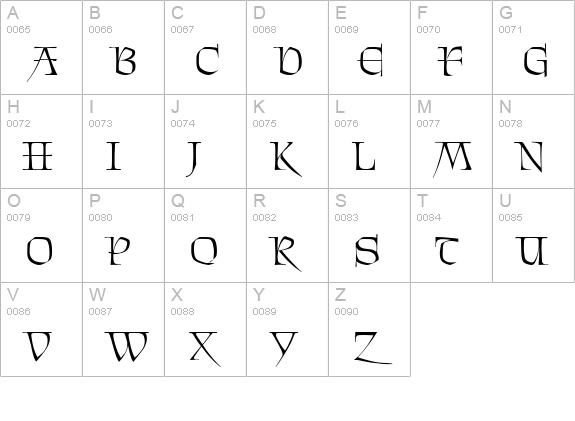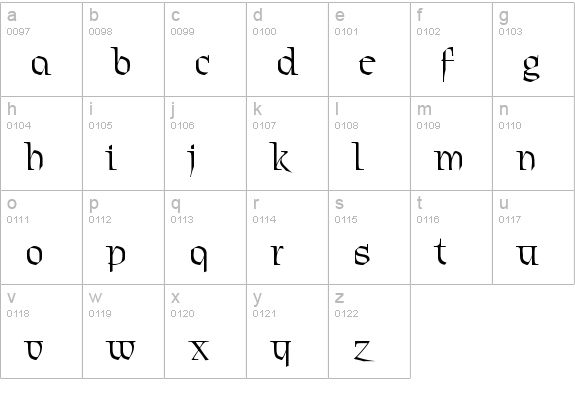
Patrick Font Details
Patrick font is a stunning typeface that exudes elegance and sophistication. It is a versatile font that can be used for various design projects, from logos and branding to headlines and body text. With its clean lines and graceful curves, Patrick font adds a touch of class to any design. What sets Patrick font apart is not only its impeccable design but also its accessibility. This incredible font is available for free download at FontsMarket.com. This means that designers, artists, and creatives of all kinds can freely access and utilize this beautiful typeface in their work without any constraints. Whether you are a professional designer or a hobbyist, Patrick font offers you the opportunity to elevate your projects to the next level. Its timeless elegance and versatility make it suitable for a wide range of creative endeavors. From creating stunning advertisements to designing captivating websites, Patrick font will surely make your work stand out. Don't miss out on the chance to enhance your designs with this remarkable font. Download Patrick font for free at FontsMarket.com and unlock limitless possibilities for your creative endeavors. With its freely available nature, Patrick font ensures that everyone can enjoy its beauty and make their designs truly exceptional.